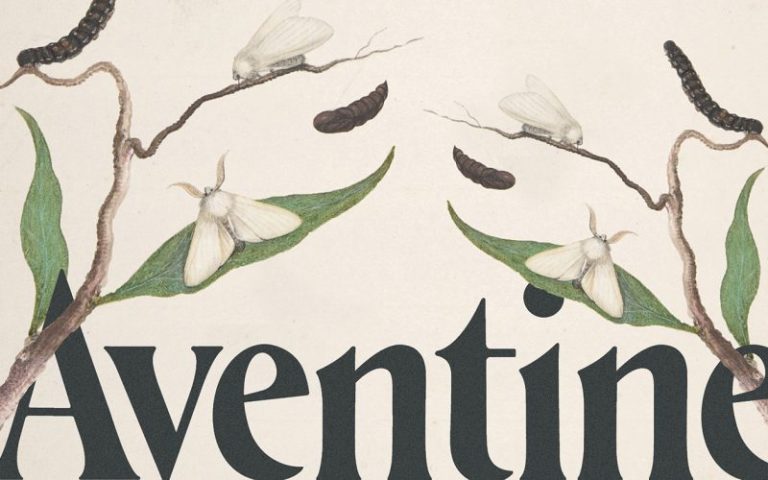
AVENTINE Oldstyle Typeface
Say Hello Guy’s . Thank you for looking AVENTINE Typeface. This is a display titling serif typeface. It can be used to create almost all types of design projects like print materials. Just use your imagination and some graphic design set in Extras, your project will become more alive and look great than ever with one of the Offlander Font.
With careful kerning and a full set of punctuation and characters, AVENTINE is perfect for modern fashion and signage, or when you need a font that is tough but reliable.